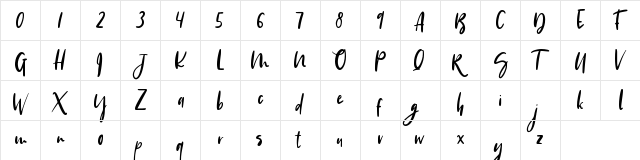
Hippie Unicorn Regular
| Designer | Dimas Prasetyo |
Design Context for Hippie Unicorn Typeface
Hippie Unicorn is a composed and adaptable typeface that performs quietly and consistently across a wide range of design contexts.